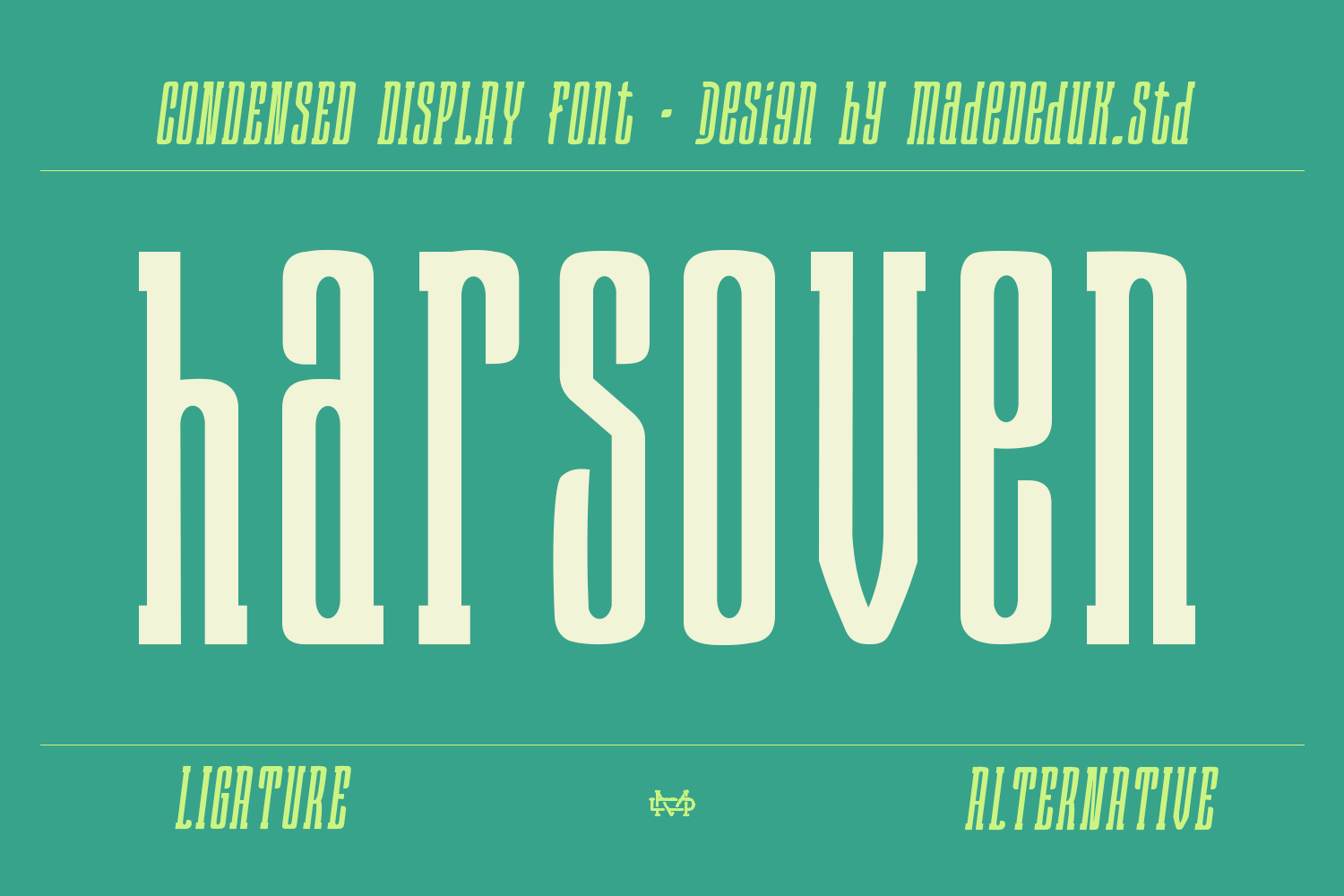
Harsoven Font
Harsoven is a condensed serif font characterized by sharp diagonal lines, perfect for bold typography that makes your designs stand out. The typeface is available in a single weight and includes an italic variant. This font perfectly in logos, contemporary posters, album art, and lifestyle driven branding. Whether you’re creating digital content or printed materials.
Feature
•  Uppercase & Lowercase
•  Number & Symbol
•  International Glyphs
•  Multilingual support
•  Alternative
•  Ligature